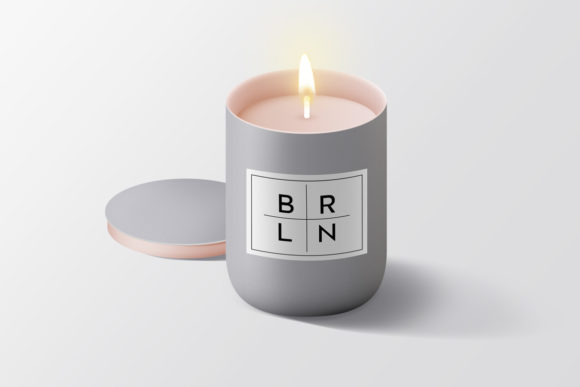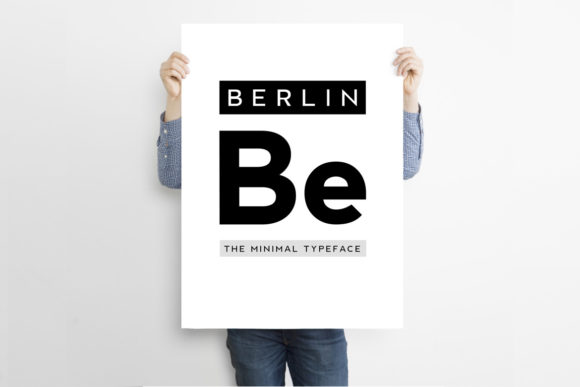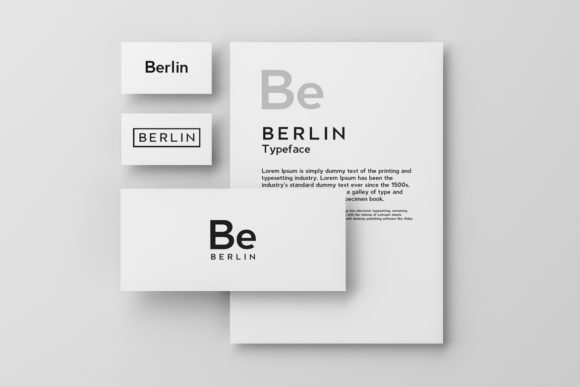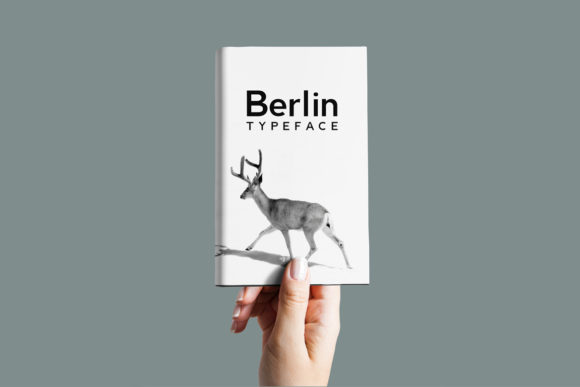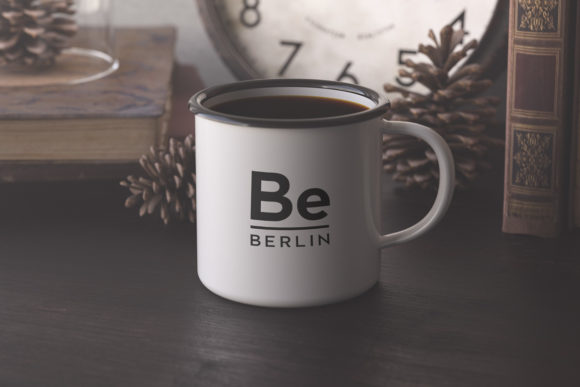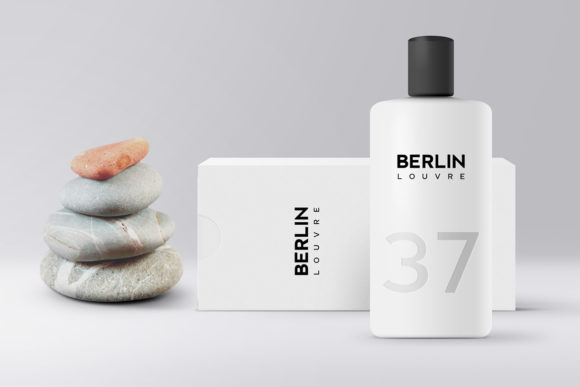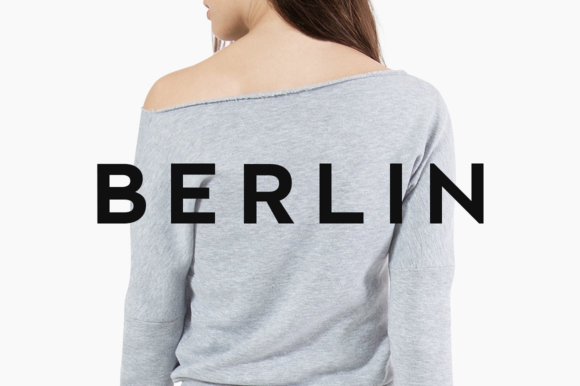
Introducing Berlin Font: A Modern Sans Serif Headline Typeface
In the world of typography, a good font can make all the difference in creating a lasting impression. For designers and crafters, finding the perfect typeface that embodies modernity and minimalism can be a daunting task. However, look no further than the Berlin Font, a sleek and contemporary sans serif headline typeface that is sure to elevate your designs.
Inspired by Classic Geometric Typefaces
The Berlin Font draws inspiration from classic geometric typefaces, which were popularized in the early 20th century. These typefaces were characterized by their clean lines, simple shapes, and minimalist aesthetic. The Berlin Font takes these principles and updates them for the modern era, creating a font that is both timeless and trendy.
Minimalism at its Best
One of the standout features of the Berlin Font is its commitment to minimalism. The font’s design is stripped back to its essential elements, with a focus on clean lines, simple curves, and a limited color palette. This makes it perfect for designers who want to create bold, eye-catching headlines without overwhelming their audience.
Perfect for Fashion Web Stores and Minimal Portfolio Websites
The Berlin Font is particularly well-suited for use in fashion web stores and minimal portfolio websites. Its modern, sleek aesthetic makes it perfect for showcasing high-end fashion brands or creative portfolios. With the addition of some letter spacing, the font can be transformed into a truly stunning headline that grabs the attention of your audience.
4 Weights to Choose From
The Berlin Font comes in 4 weights, giving designers a range of options to suit their needs. Whether you want to create a bold, attention-grabbing headline or a more subtle, understated title, the Berlin Font has got you covered. The 4 weights also make it easy to create visual hierarchy in your designs, ensuring that your most important messages stand out.
Key Features of the Berlin Font
• Modern sans serif headline typeface
• Inspired by classic geometric typefaces
• Minimalist aesthetic with clean lines and simple curves
• Perfect for fashion web stores and minimal portfolio websites
• Comes in 4 weights for added versatility
Tips for Using the Berlin Font
To get the most out of the Berlin Font, here are a few tips to keep in mind:
• Add some letter spacing to create a more airy, open feel
• Use the font in combination with other sans serif typefaces for a cohesive look
• Experiment with different weights to create visual hierarchy in your designs
• Don’t be afraid to get creative and try out new and interesting typography combinations
The Berlin Font is a modern sans serif headline typeface that is sure to impress designers and crafters alike. With its minimalist aesthetic, geometric inspiration, and range of weights, it’s the perfect choice for creating bold, eye-catching headlines. Whether you’re working on a fashion web store or a minimal portfolio website, the Berlin Font is a versatile and stylish option that is sure to elevate your designs.